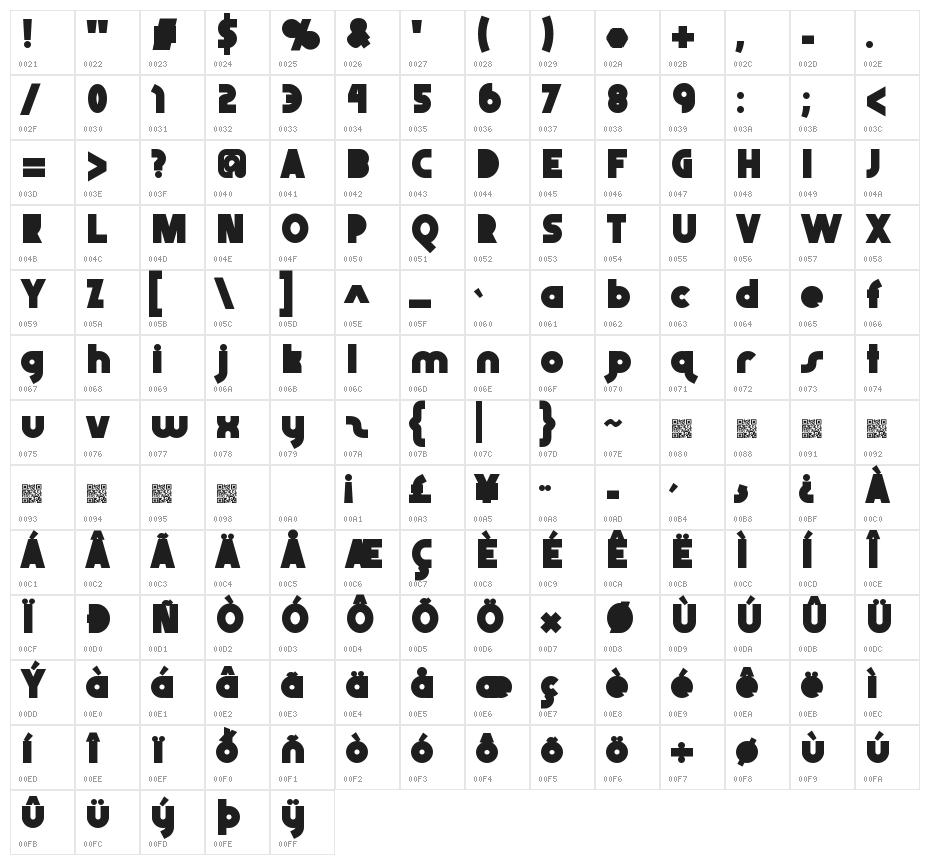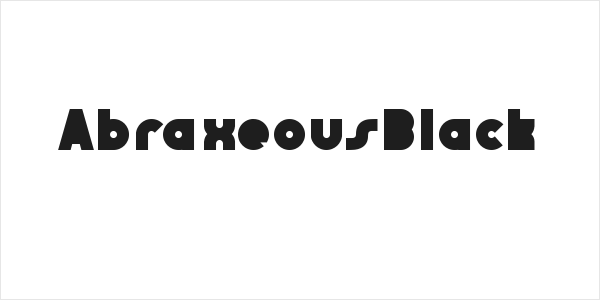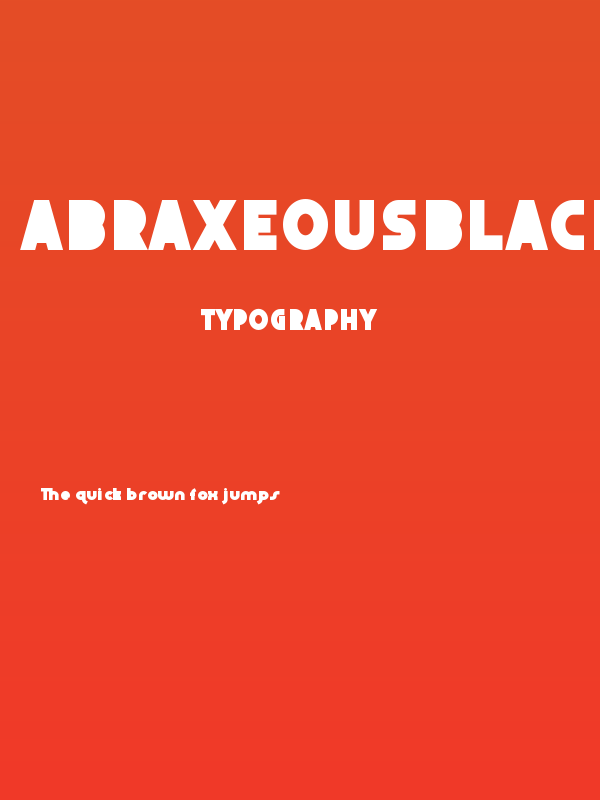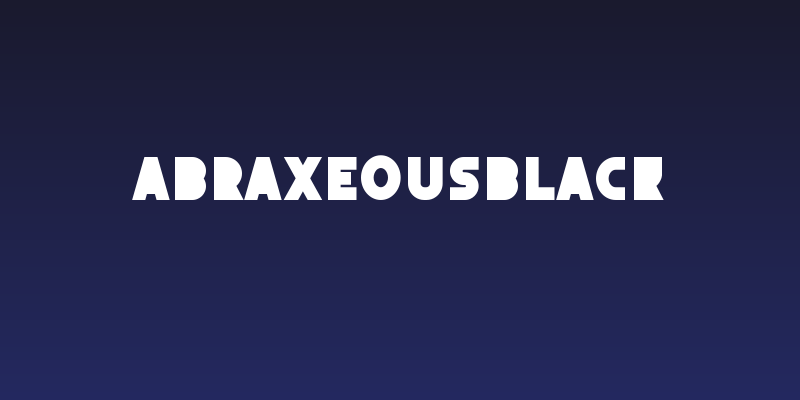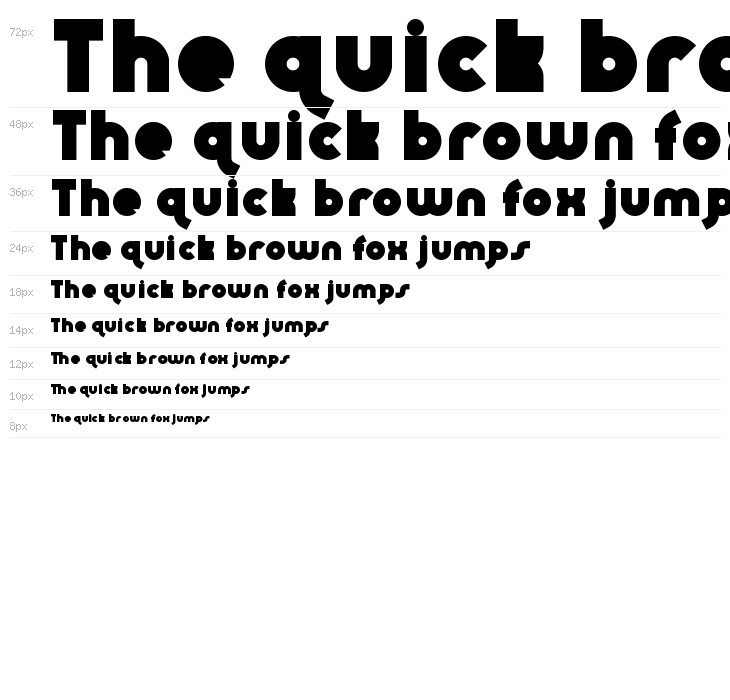
AbraxeousBlack Font
AbraxeousBlack Description
This font features bold, geometric shapes with a strong presence. The characters are designed with sharp angles and a solid structure, giving them a modern and assertive look. The uppercase letters are particularly striking, with a blocky and robust appearance. The lowercase letters maintain the same boldness, with some unique curves and angles that add a touch of playfulness. The numbers are equally bold, ensuring consistency throughout the font. Special characters are designed to match the overall aesthetic, making this font suitable for impactful and attention-grabbing designs.
| Proposed Projects | Ideal for branding, posters, headlines, and any design requiring a strong visual impact. |